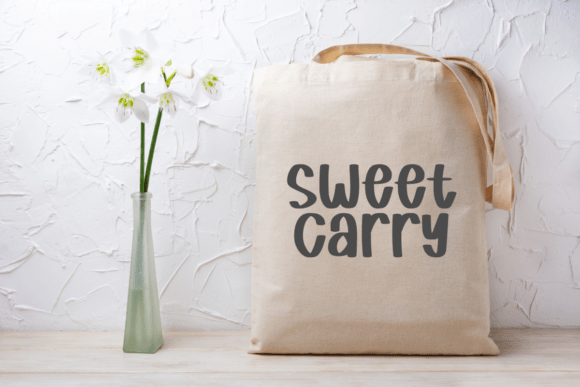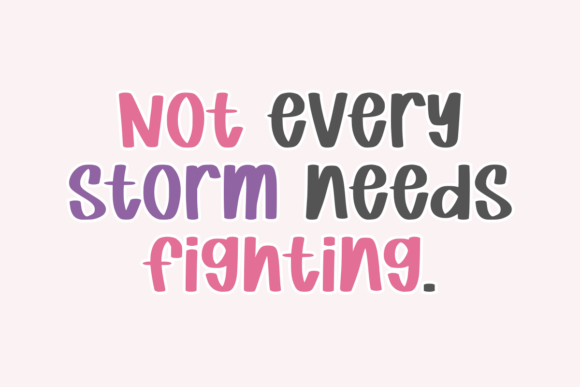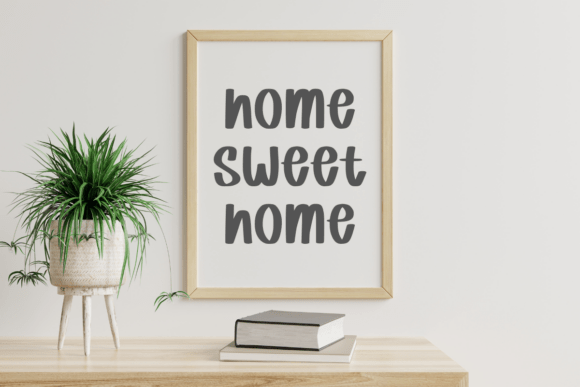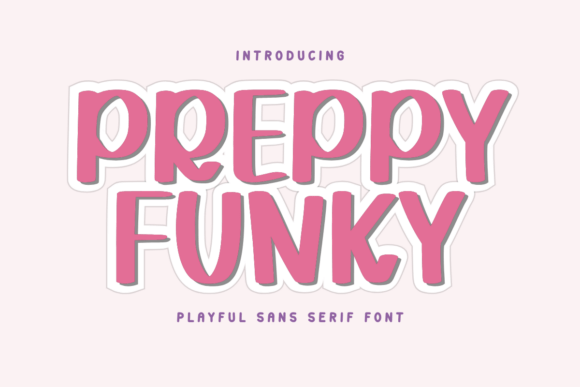
Introduction to Preppy Funky Font
Preppy Funky is a cute sans serif handwriting font designed with a soft, friendly, and natural look.
This font brings a warm handcrafted feeling that works beautifully for craft projects, planners, stickers, kids’ worksheets, classroom printables, and DIY designs Its simple strokes and smooth curves make it easy to cut using Cricut and Silhouette, and perfect for crafting moms who love adorable handwritten styles.
Preppy Funky Font offers exceptional quality and versatility, making it a valuable addition to your design toolkit. Whether you’re creating for personal projects or commercial use, Preppy Funky Font delivers professional results.